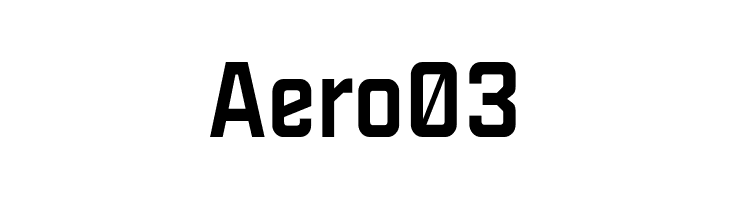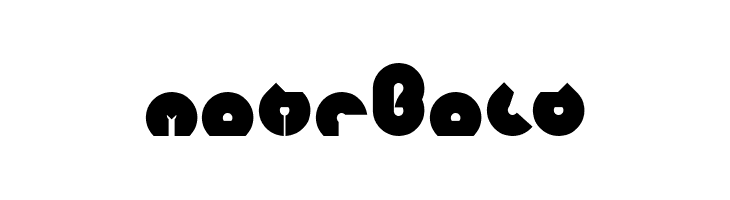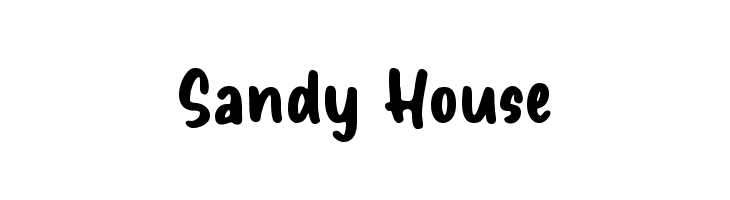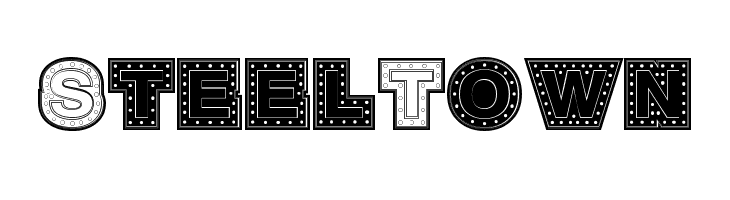
A bold, modern sans-serif font with a geometric and slightly condensed style.
A decorative font with characters formed by seed-like shapes, offering a playful and organic look.
A pictogram dingbat font featuring diverse object silhouettes.
A sketch-like, expressive font with a hand-drawn, artistic style.
A futuristic, angular italic font with a sleek, modern design.
A futuristic, geometric font with hollow, outlined letterforms and a shadow effect.
A bold, industrial-style font with a 3D effect and rivet details.